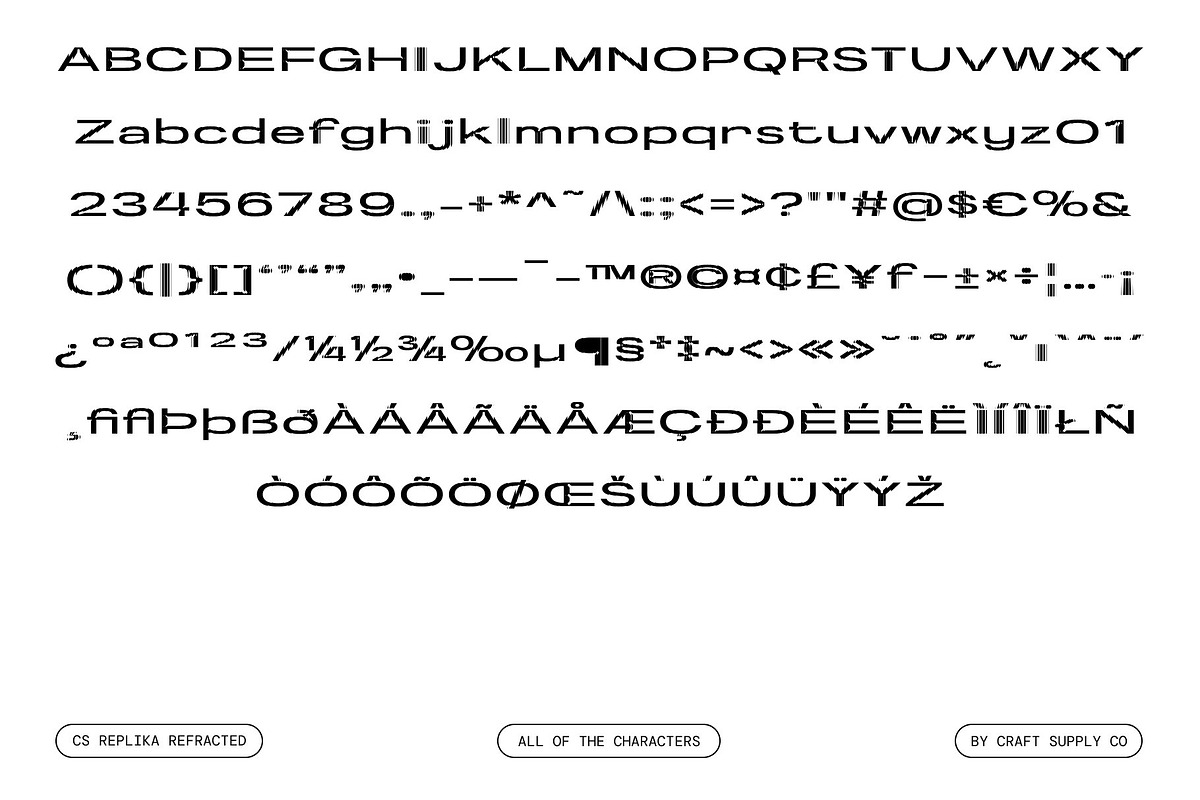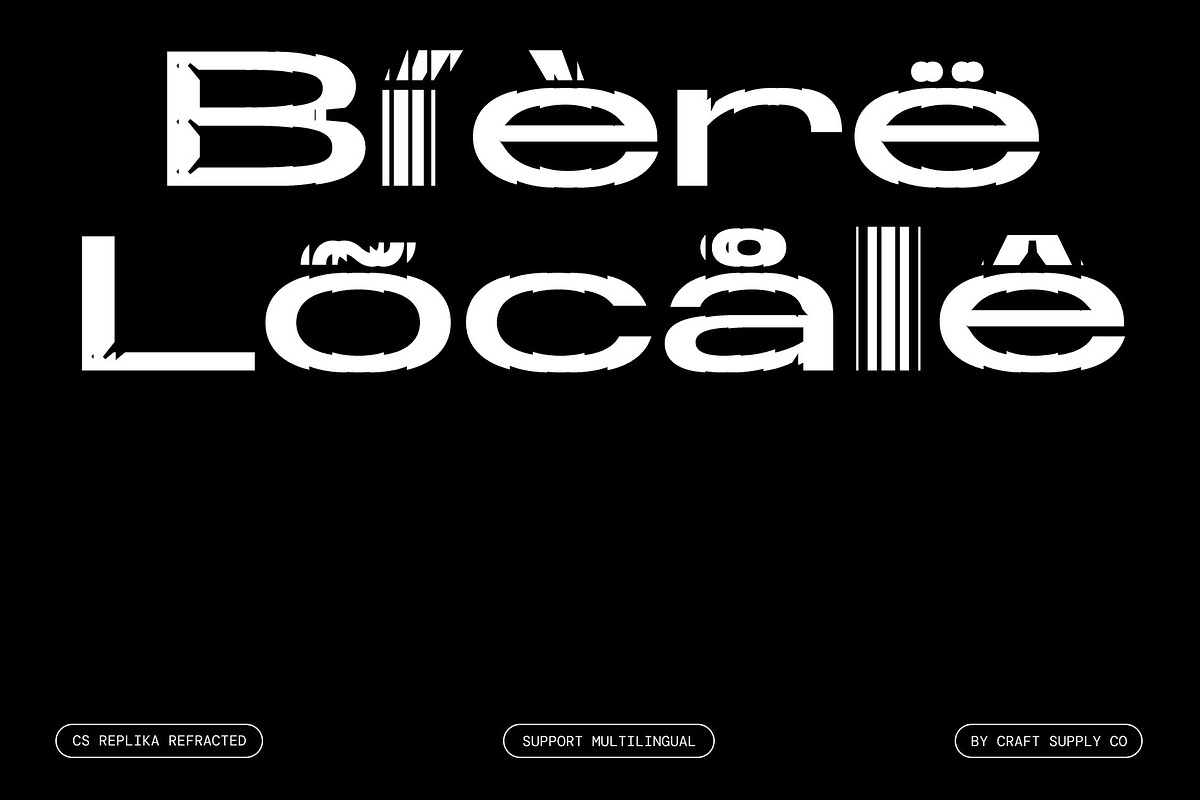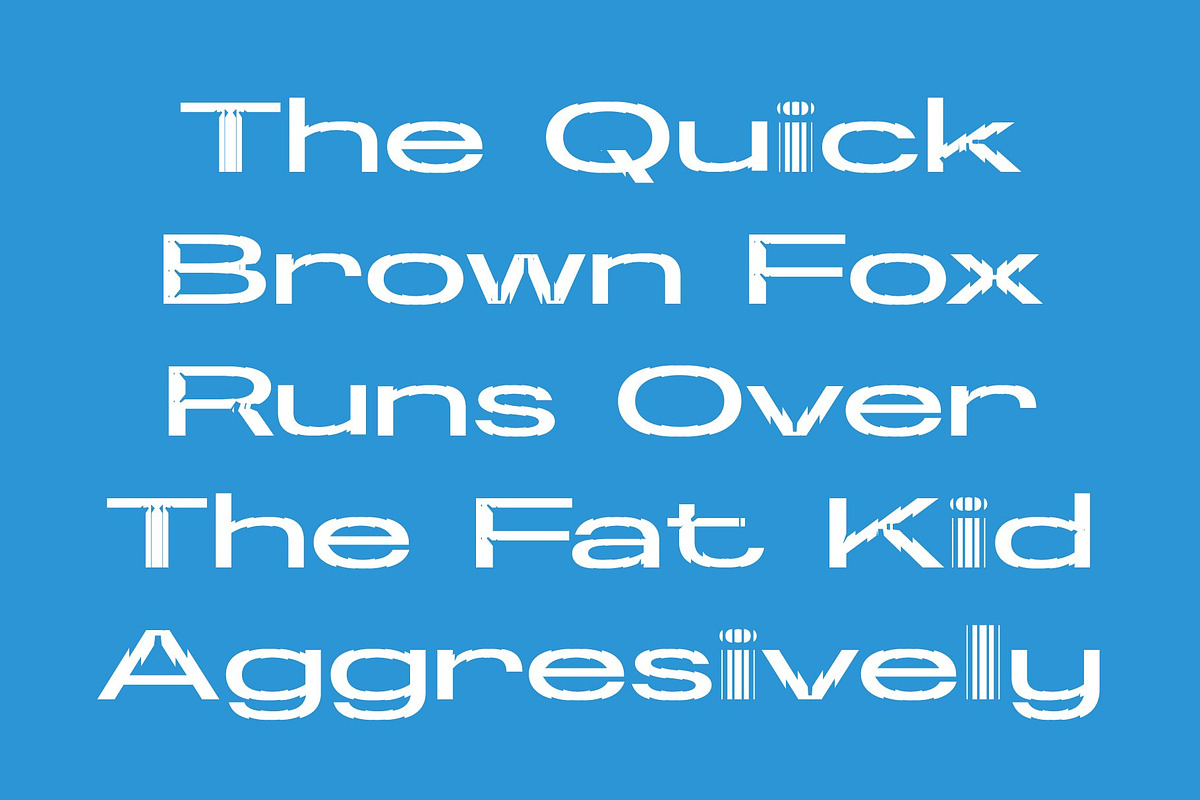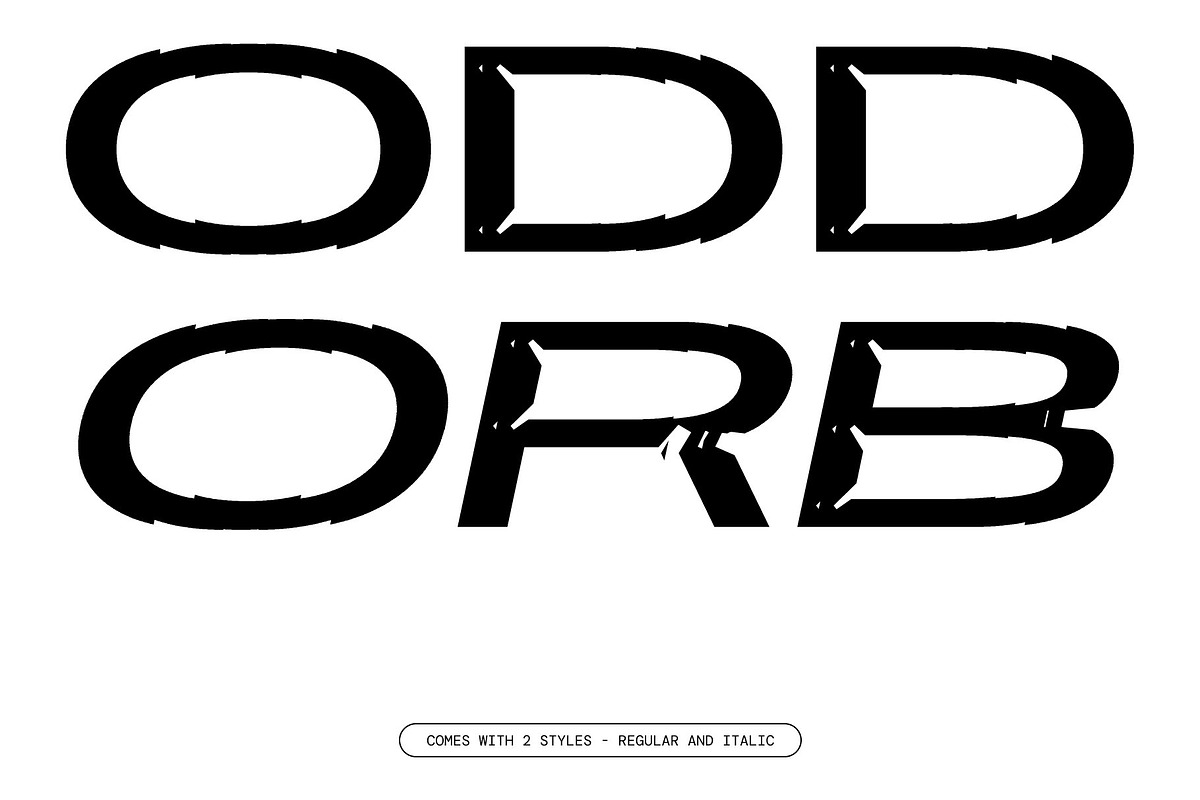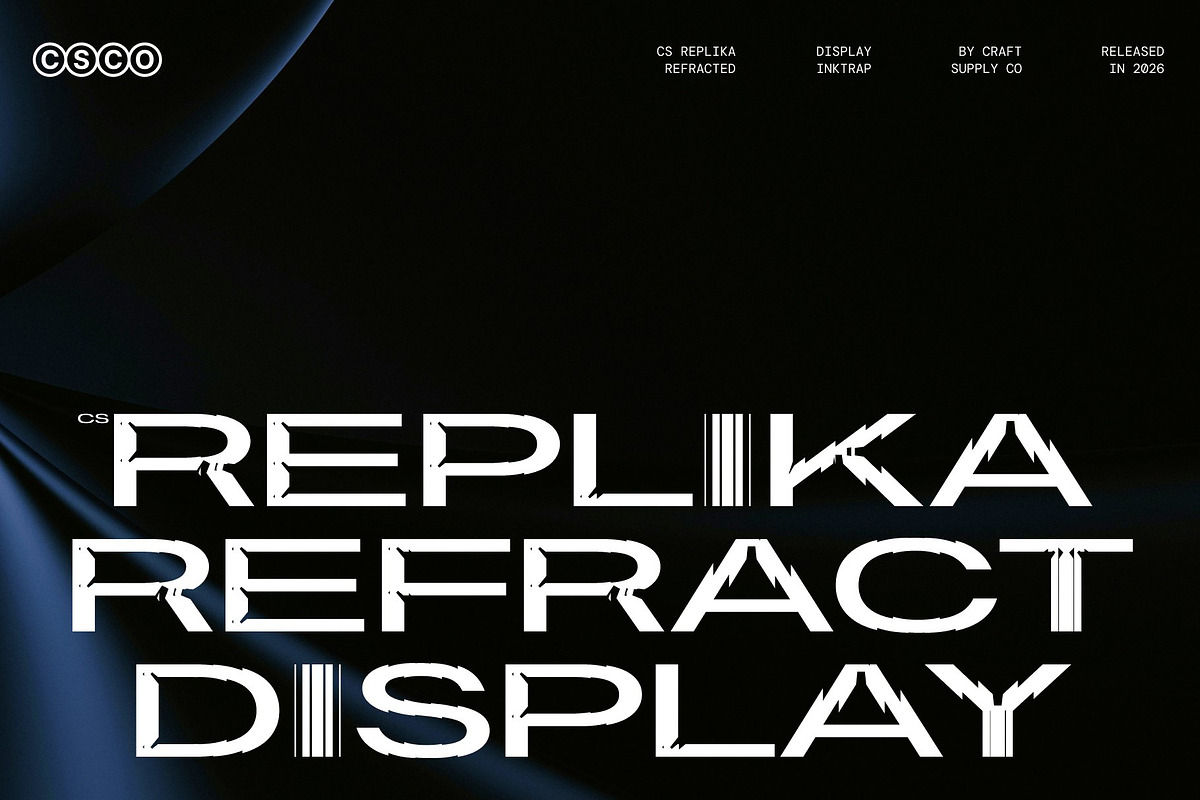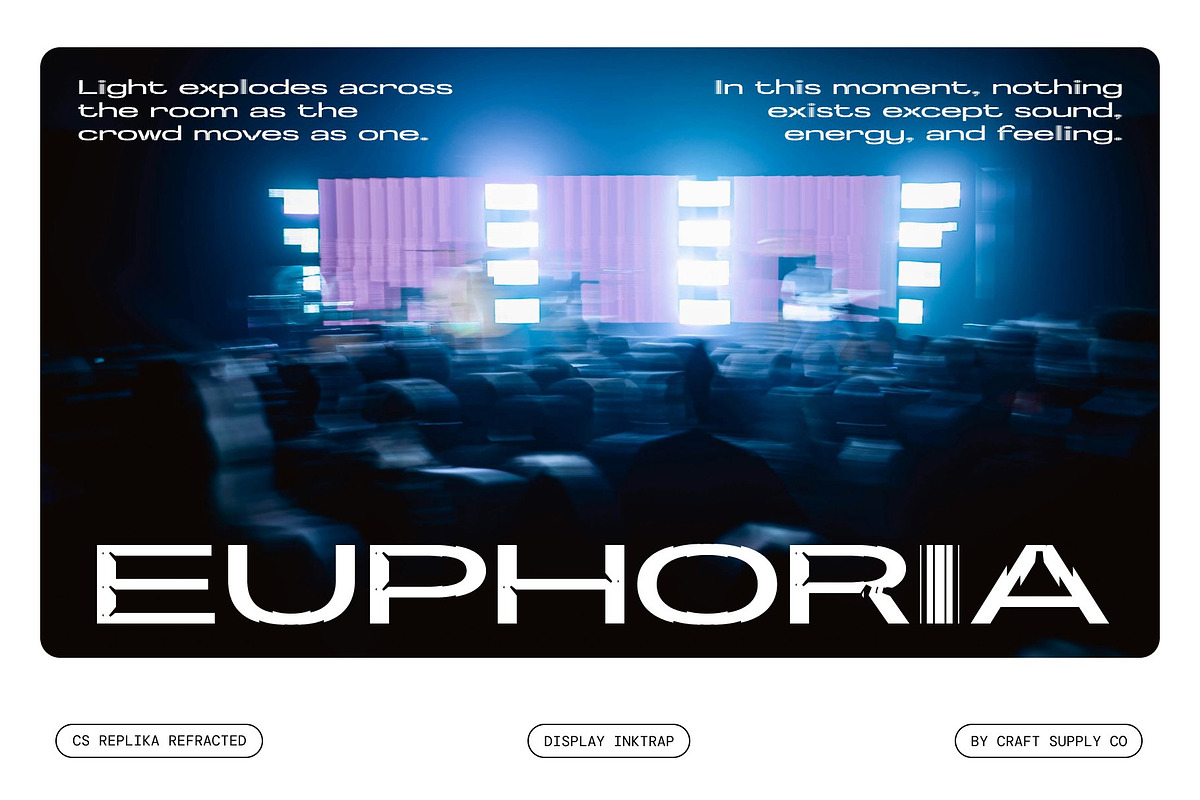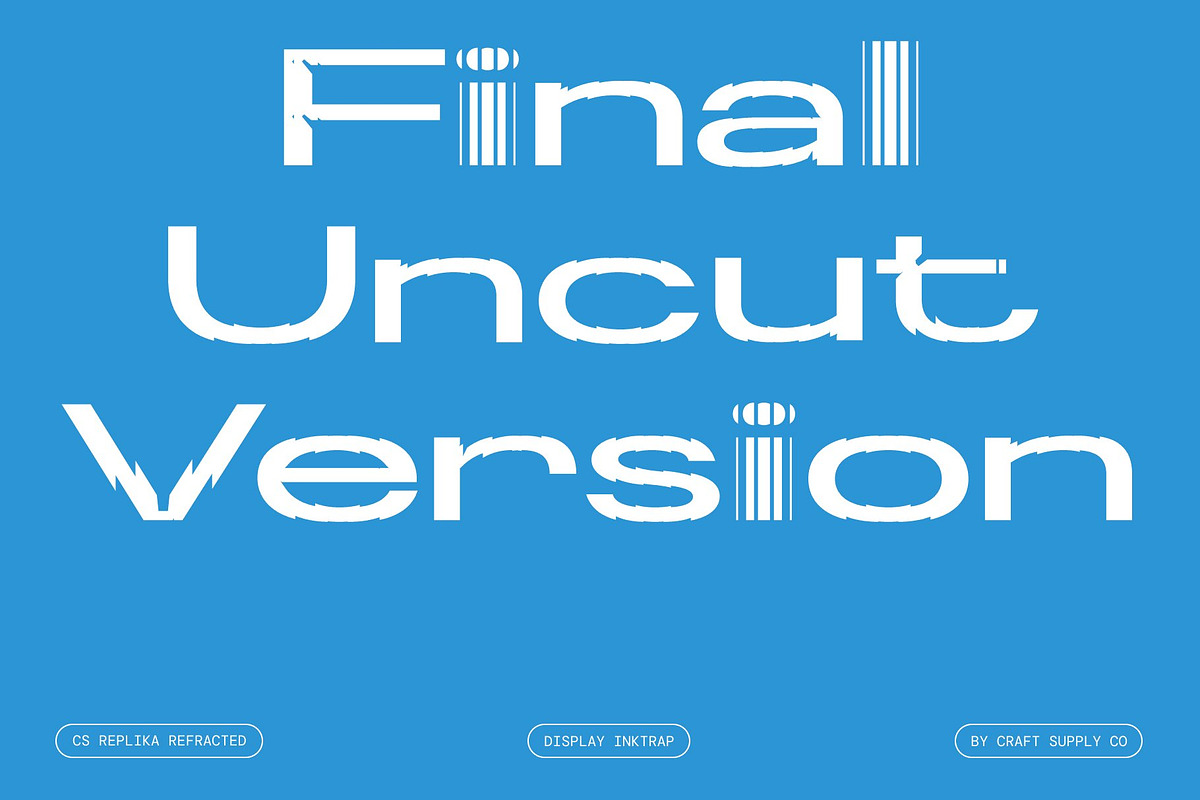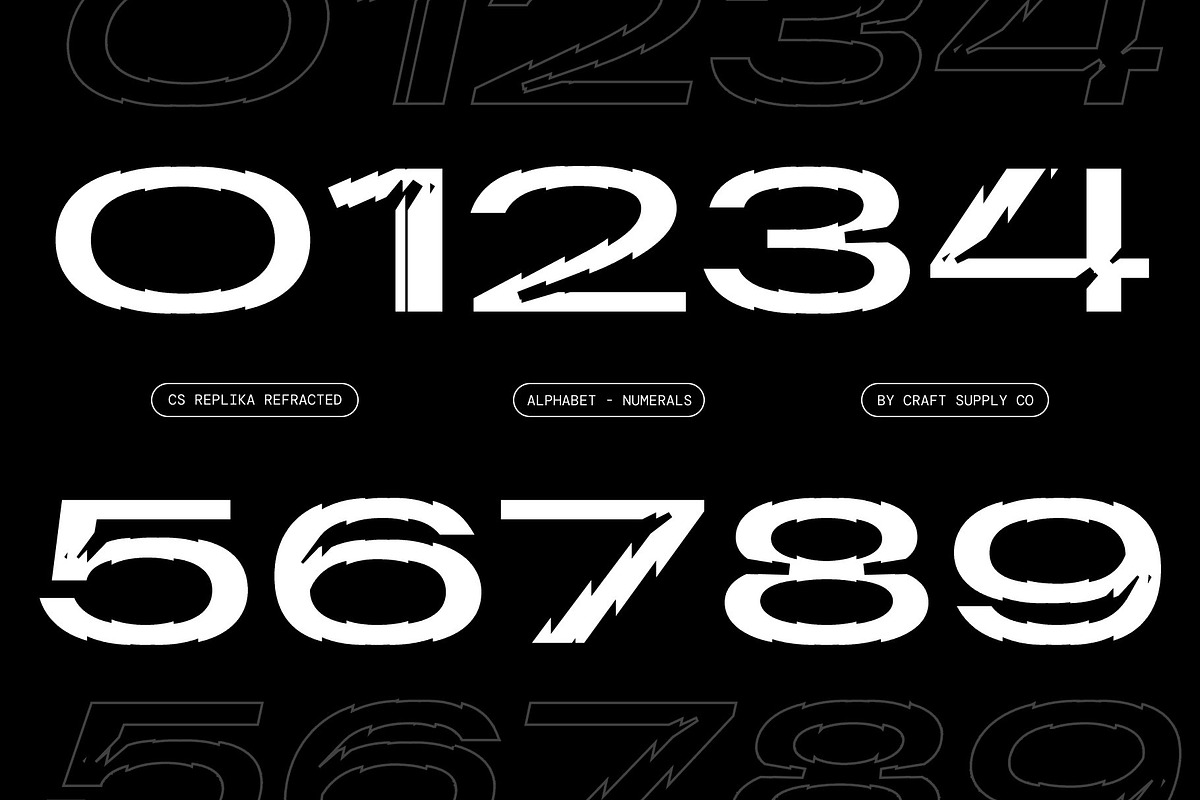
CS Replika Refracted
CS Replika Refracted – Modern Inktrap Sans Serif Font: Precision Clarity with Futuristic Light Distortion
Wide Letterforms with Functional Modern Precision This is a modern sans serif typeface designed with wide, open proportions and refined inktrap detailing. Its spacious structure creates a clean and highly readable appearance, allowing text to breathe naturally across layouts. The inktrap cuts are carefully integrated into each character, enhancing clarity at smaller sizes while adding a subtle technical personality that feels contemporary and intelligent.
Refracted Distortion for Dynamic Futuristic Style The refracted styling introduces geometric slices and light-inspired distortions that transform the clean structure into a visually dynamic experience. These fragmented details create a sleek glitch-like effect, adding movement and futuristic depth without compromising readability. The combination of functional inktraps and refracted elements gives the font a distinctive aesthetic that feels modern, innovative, and digitally inspired.
Balanced Geometry for Versatile Communication This font balances form and function through smooth geometry and open spacing. Its wide proportions improve readability across digital interfaces, while the sharp inktrap and refracted details provide visual character and sophistication. This makes the typeface highly adaptable for both bold display applications and structured modern layouts.
Perfect for Tech Branding and Minimalist Design Designed for modern communication, this font excels in branding, app interfaces, editorial systems, packaging, and corporate visuals. Its polished appearance and futuristic tone make it especially effective for technology brands, digital products, and minimalist identities that demand clarity with personality.